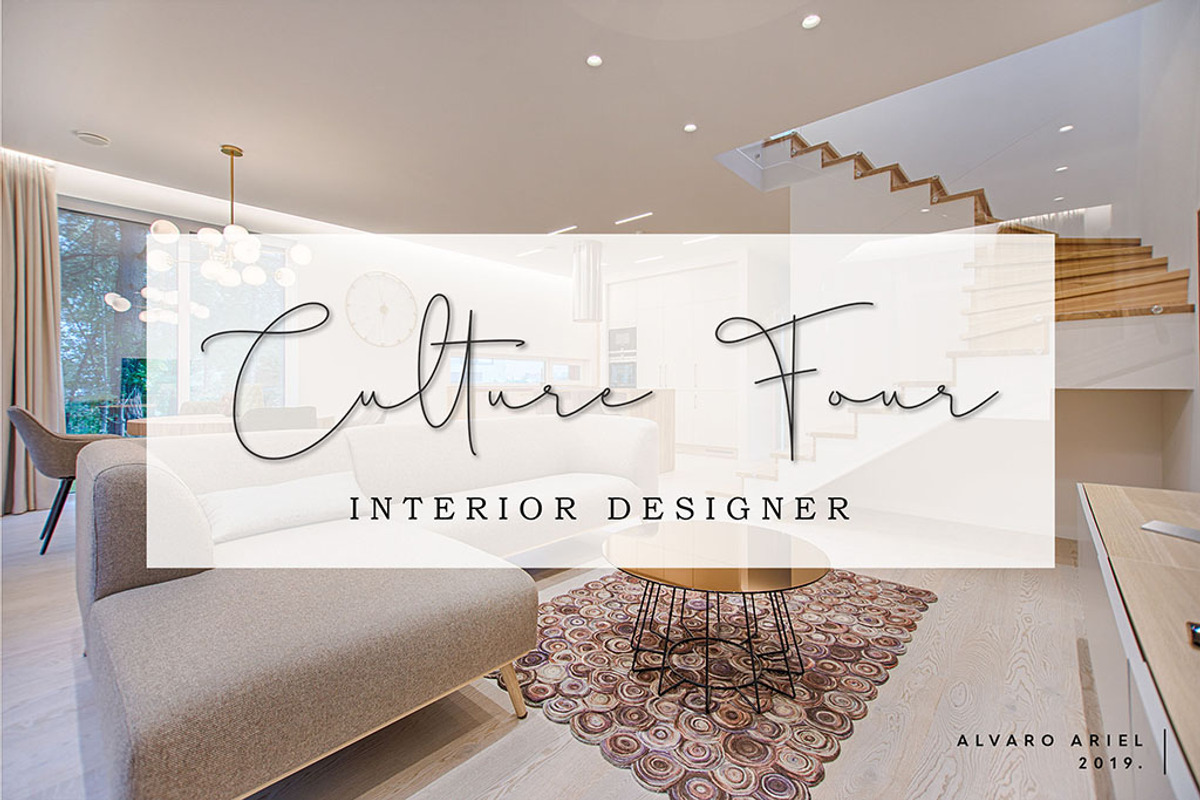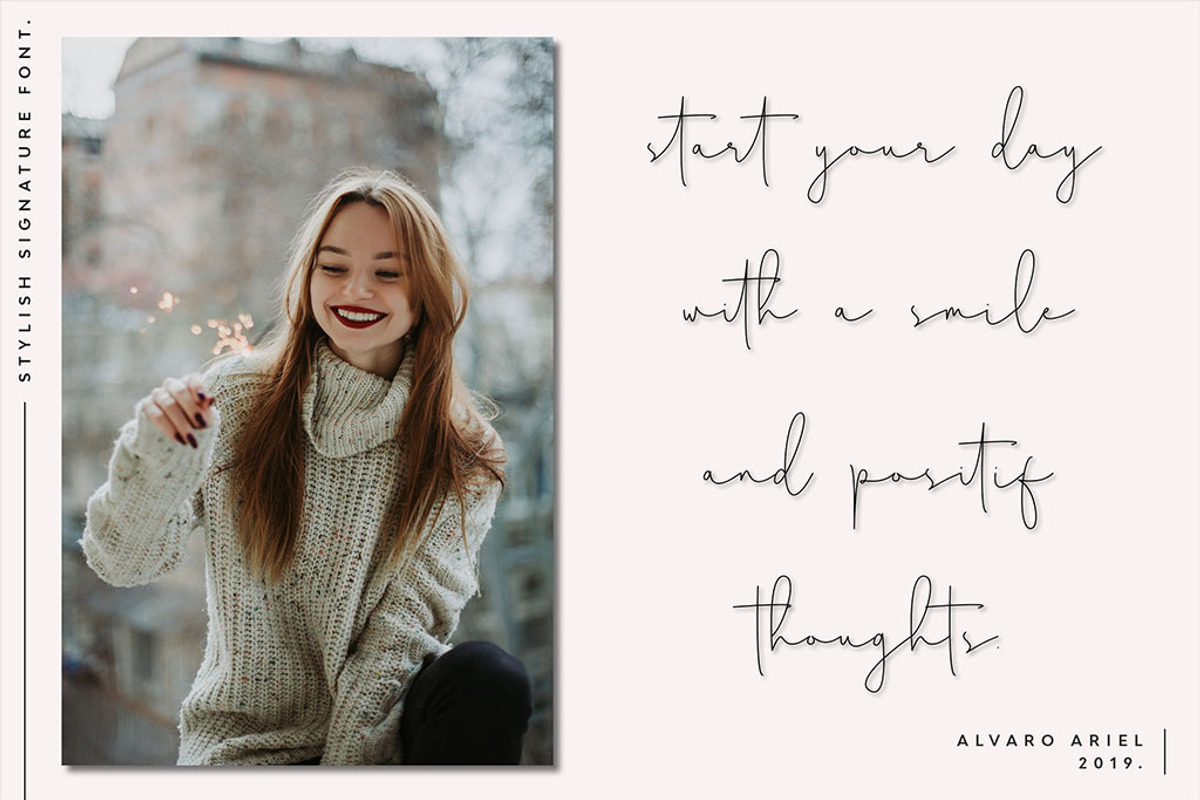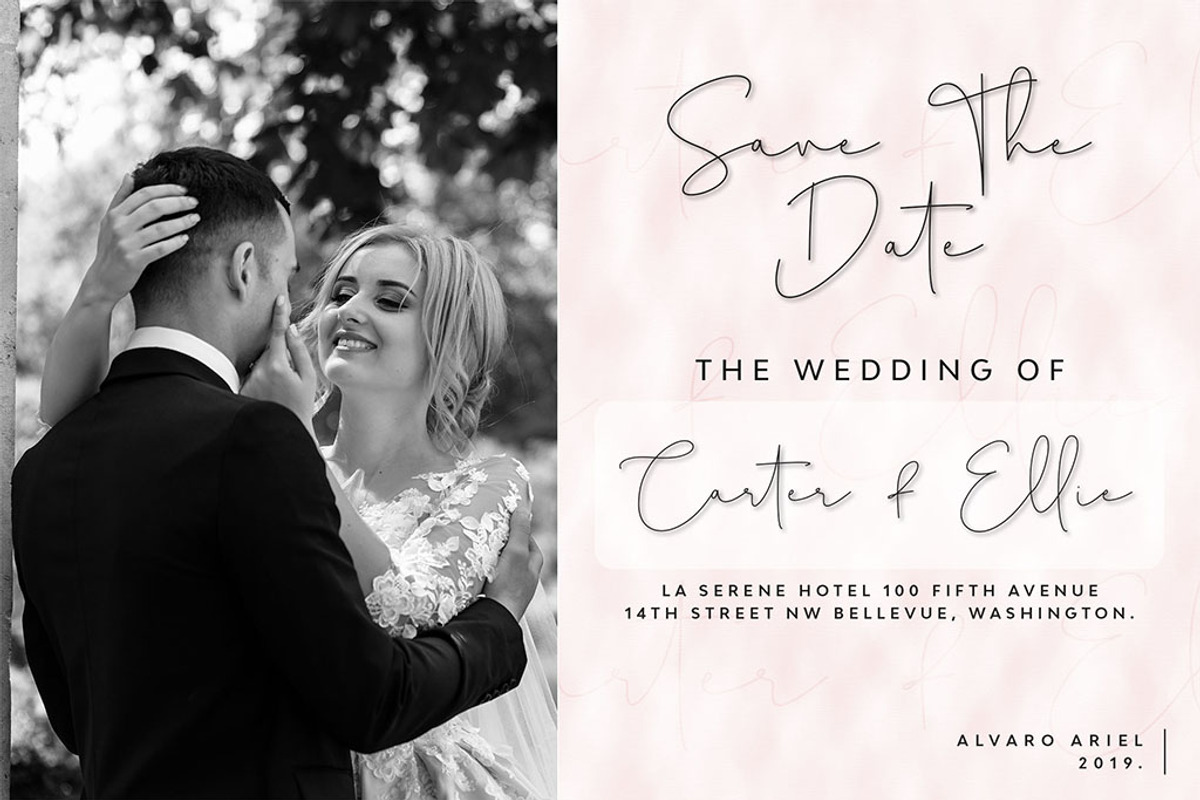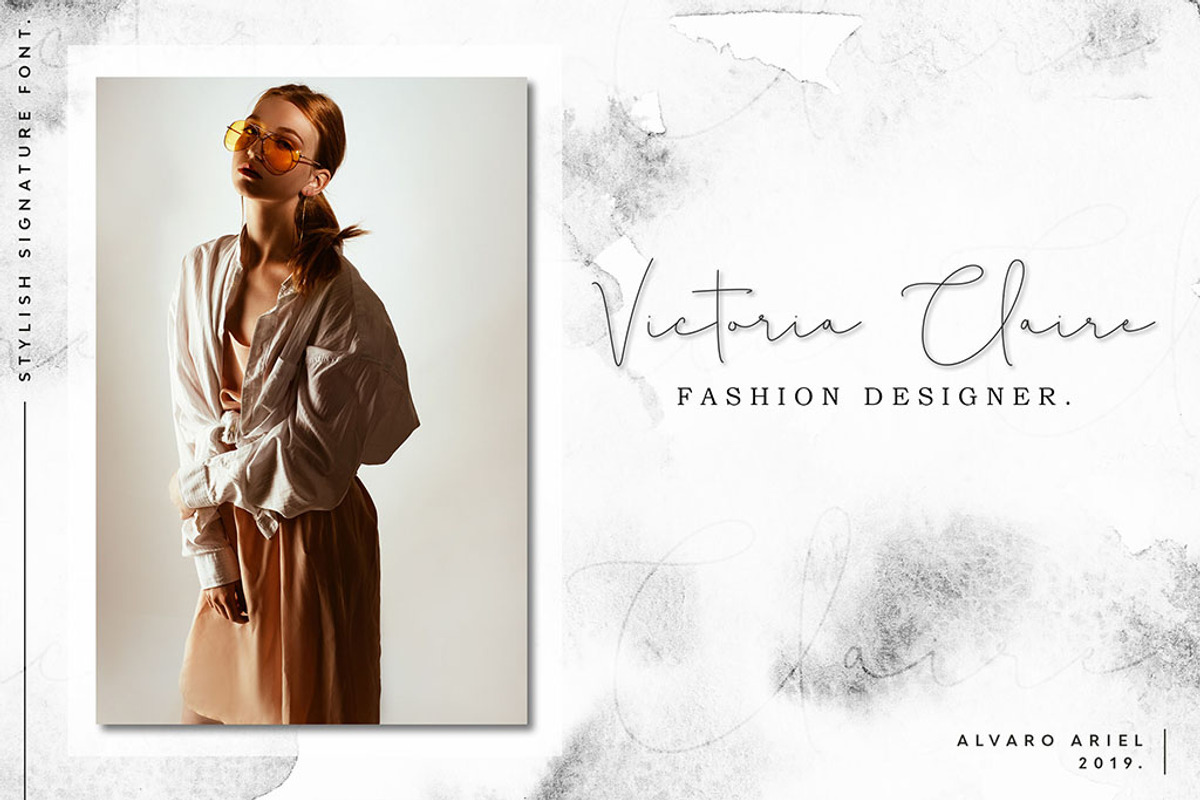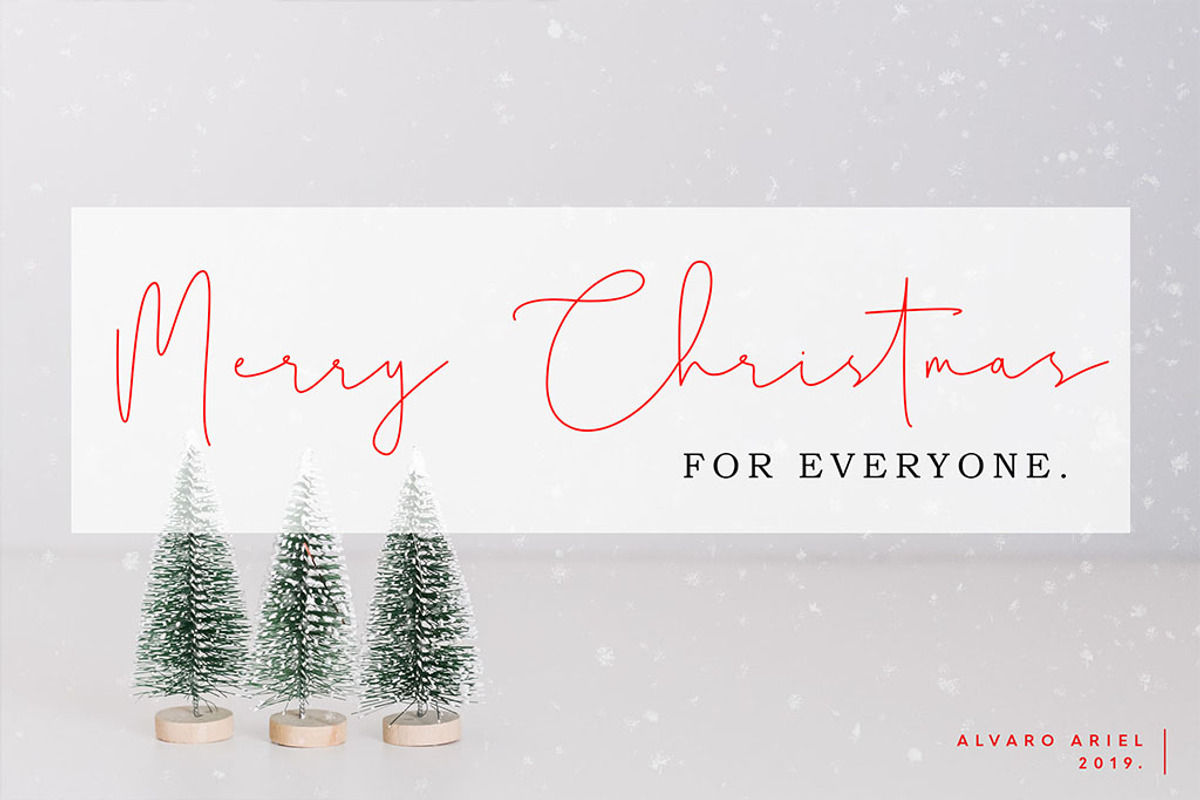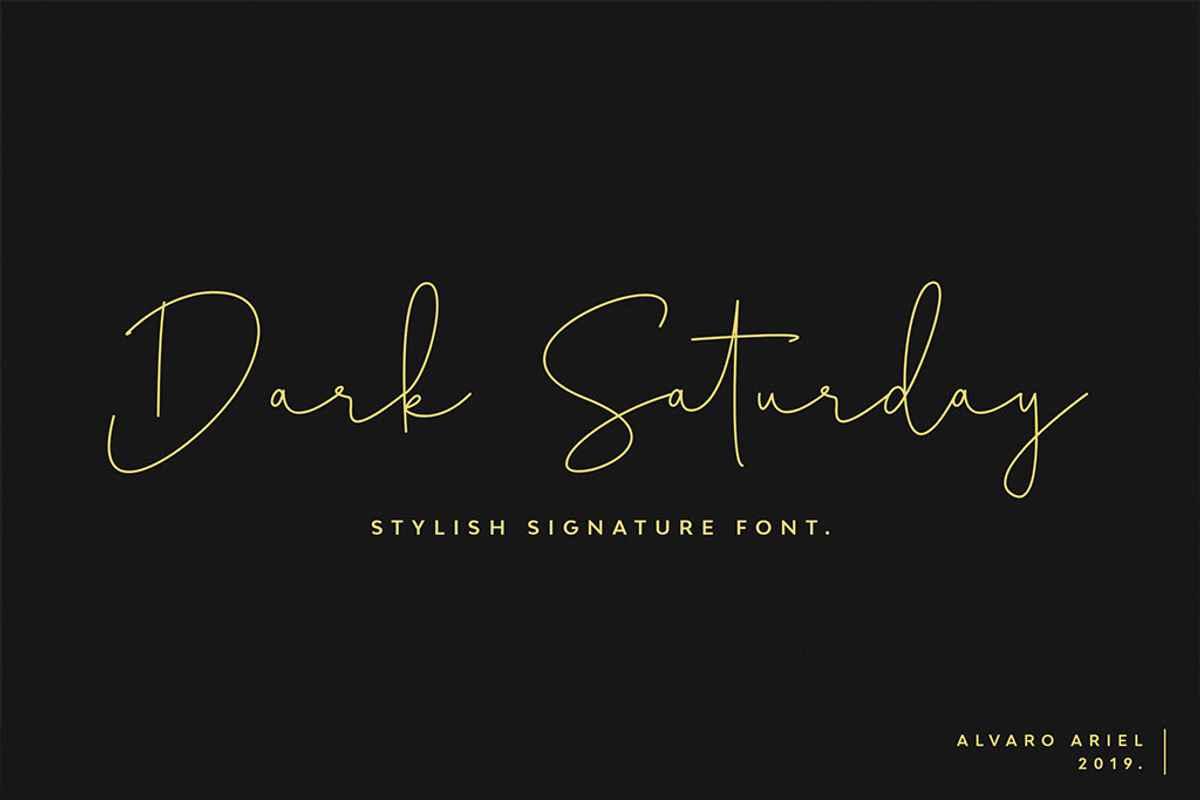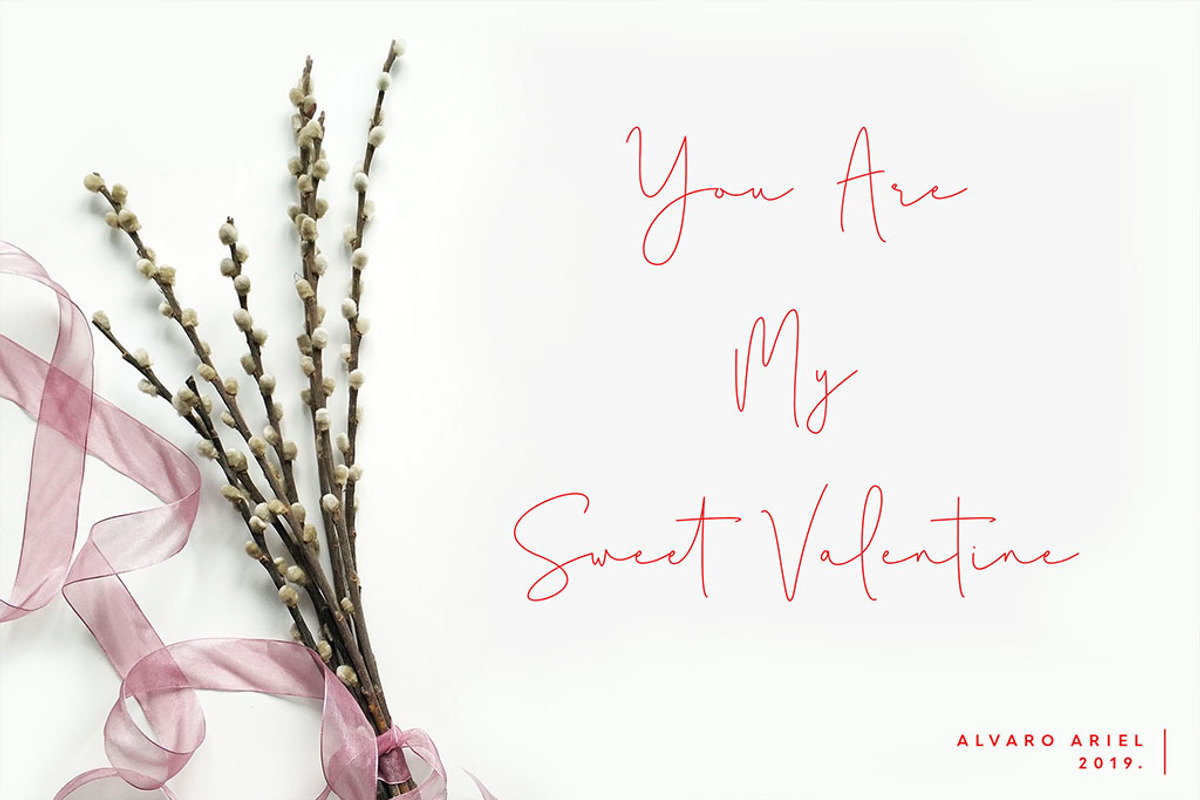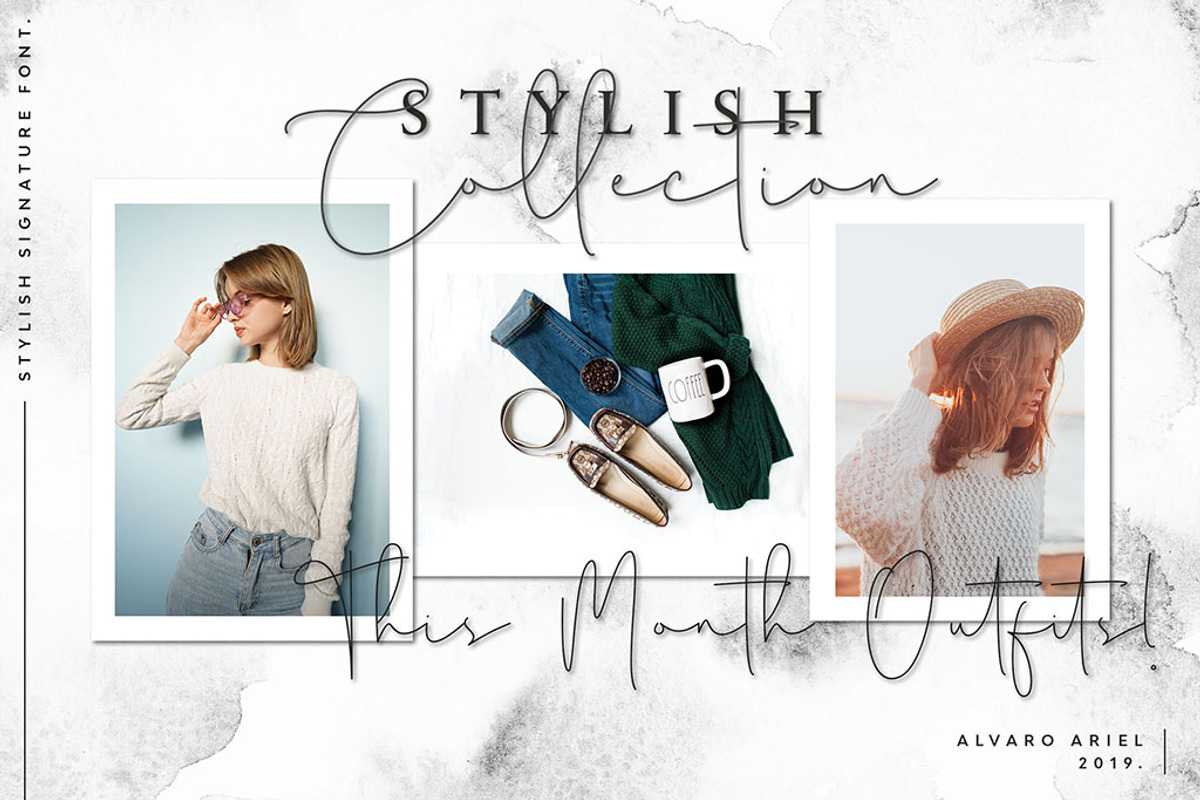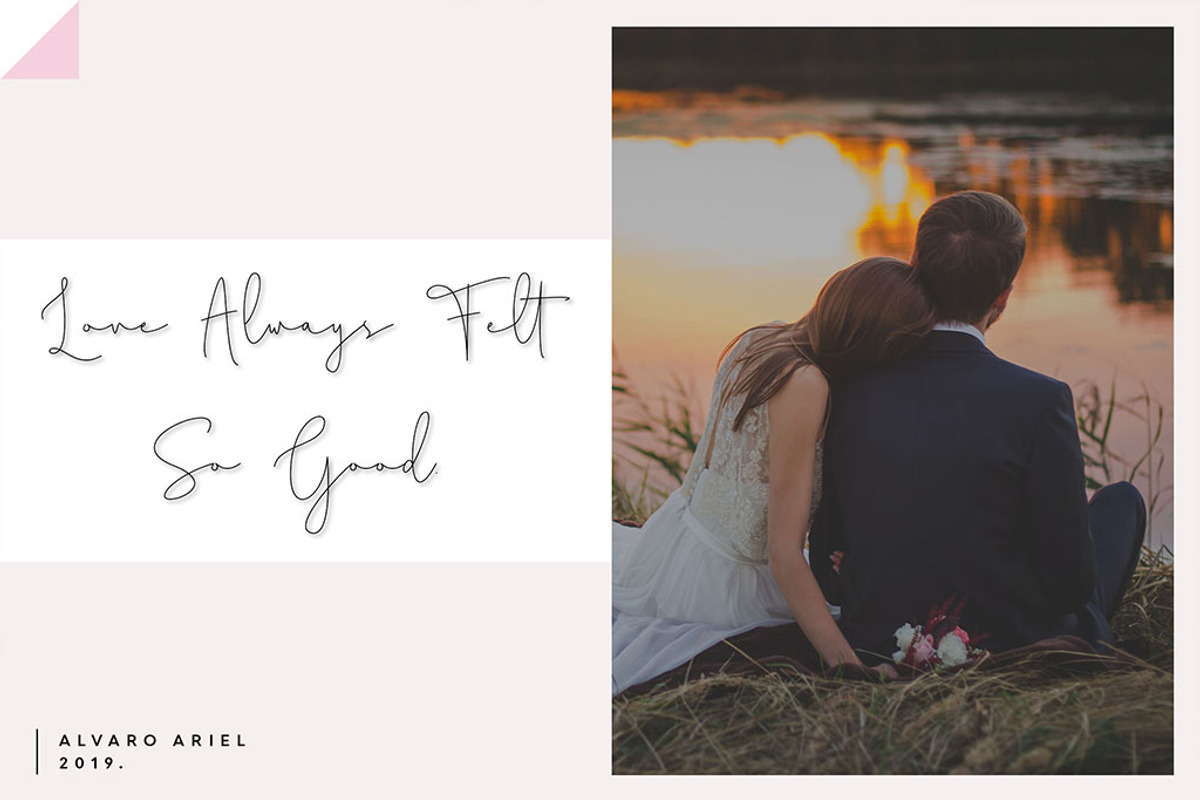
Dark Saturday Font
Dark Saturday - New Modern Signature Font with a stylish style make this font looks beautiful, elegant, and natural. This font contains uppercase, lowercase, numbers, symbols, including multilingual support and ligature.
Dark Saturday perfect for invitation, logos, product designs, label, photography, watermark, branding projects, social media posts, wedding designs, and any awesome design that require a signature style font. So you are guaranteed to find just the right feel for your project.
- Multilingual Support: Afrikaans, Danish, Dutch, French, German, Indonesian, Irish, Italian, Norwegian, Portuguese, Romansh, Scottish, Spanish, and Swedish